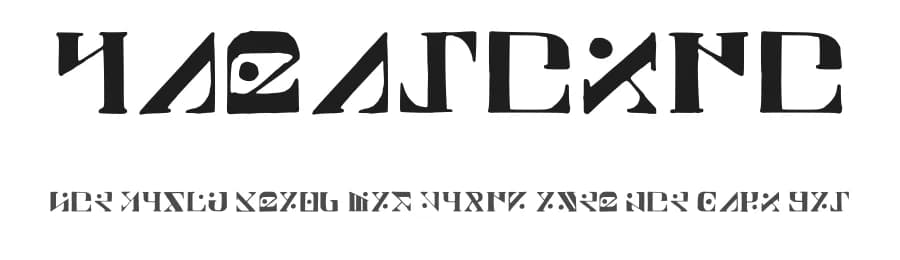
About Paraghyph Font
I designed this font for a short film I'm currently (July 27th, 2020) shooting while staying at home due the COVID-19 pandemic. This serif-like characters do have meaning in such story, but I decided to publish them because someone else may appreciate them.